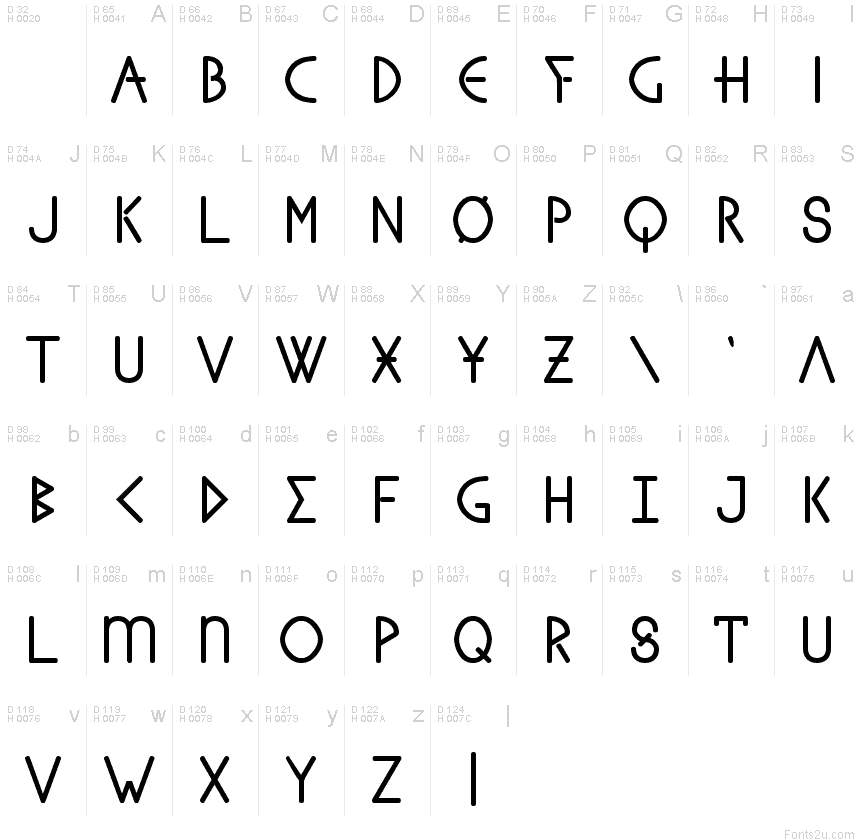
Sanhedrin
Sanhedrin, David F. Nalle's free geometric techno display font from 1998, has a stripped-down futuristic voice built from smooth curves, straight strokes, and a few sharply cut angles. The letters feel spare and symbol-like, with rounded forms set against pointed joins and a Greek-flavored twist that gives the font a slightly cryptic, engineered mood.
It works well for sci-fi branding, electronic music flyers, game interfaces, poster titles, and magazine cover lines where a free font can carry a cool, coded tone without getting busy. Use it for short headlines, title cards, or logos, especially when you want clean geometry with just enough unusual shaping to feel custom.